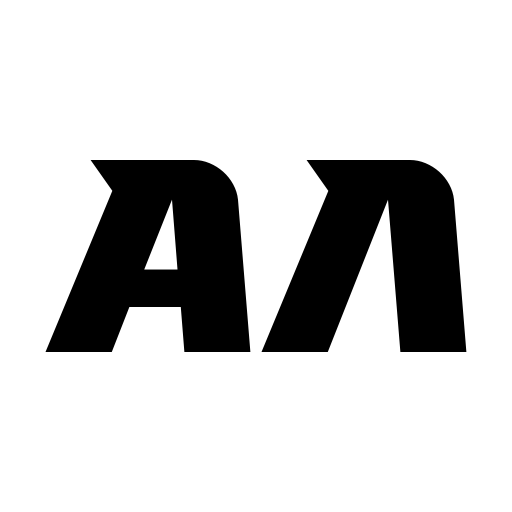
Borgsquad is a bold, geometric sans serif font with a strong, futuristic feel, characterized by its angular edges and sharp, dynamic strokes. Its condensed width and high contrast between thick and thin elements make it ideal for impactful headlines, branding, and sports or tech-themed designs that demand attention and convey energy. This font works best in display settings where a modern, assertive personality is desired.
Borgsquad Font
About Borgsquad Font